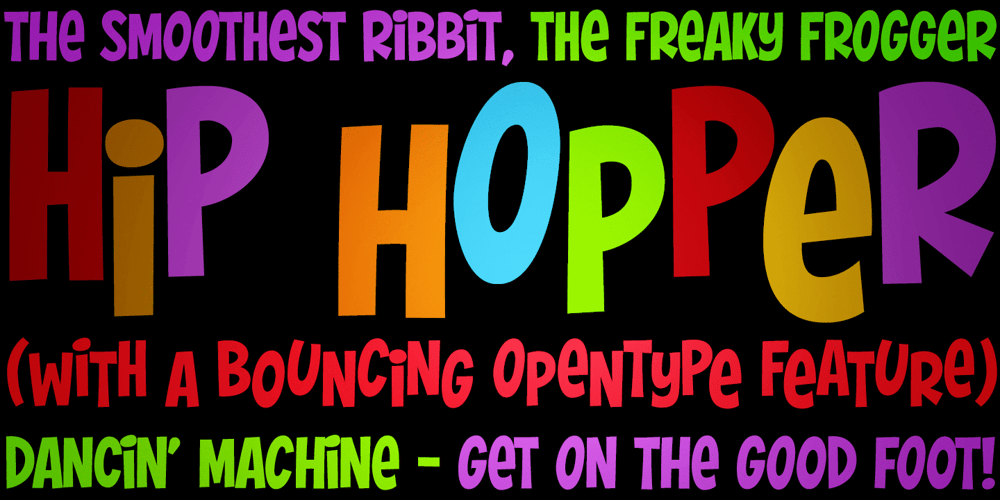
Hip Hopper
Hip Hopper font
Hip Hopper Font Family was designed by Phil Bracco and published by Pink Broccoli. Hip Hopper contains 1 styles and family package options. An offbeat typeface inspired by the lettering on an art poster by Patrick Owsley for the cartoon character Hoppity Hooper. This typeface goes beyond the basic opentype features you’ve seen (i.e. extended language character sets, stylistic alternate character variations, etc) and offers not only a ligature feature that automatically alternates between the Capitals & Lowercase (Alt Capitals) sets, but also a unique Contextual Alternates feature that enables an automatic alternating BOUNCING effect. All this piled into a single typeface with loads of personality, just waiting to be played with!